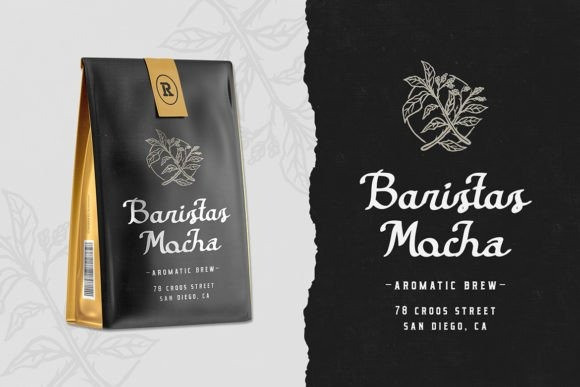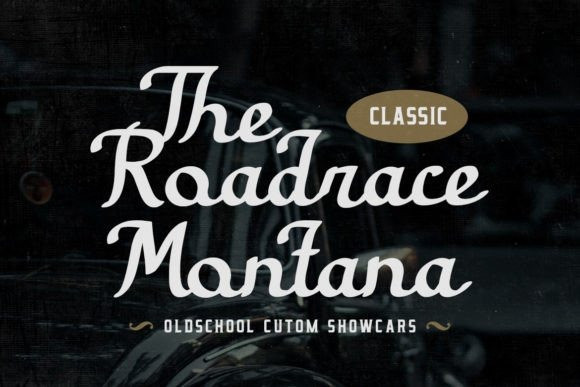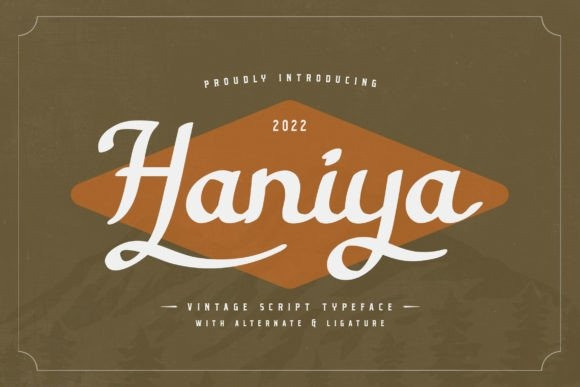
Haniya Font
Haniya Script Font is a unique vintage script font. Fall in love with its incredibly versatile style and use it to create wedding invitations, retro stationary art, eye-catching social media posts, label, logos, web, quotes, poster, workshop, and much more!